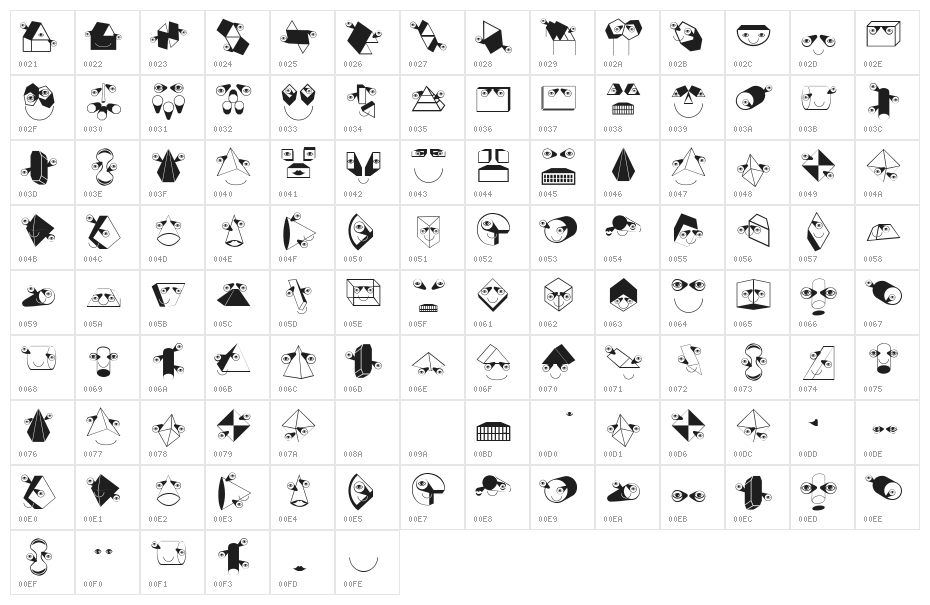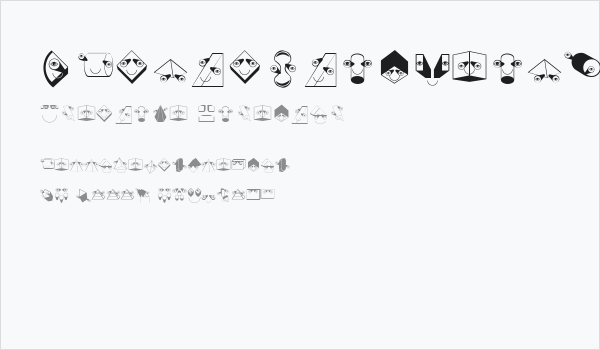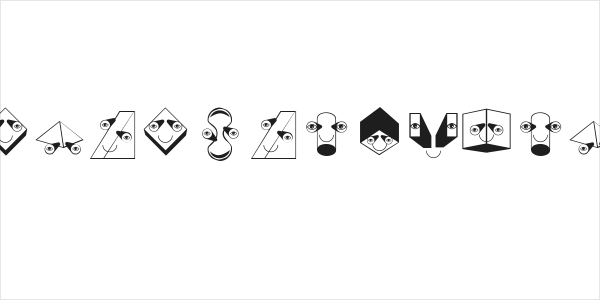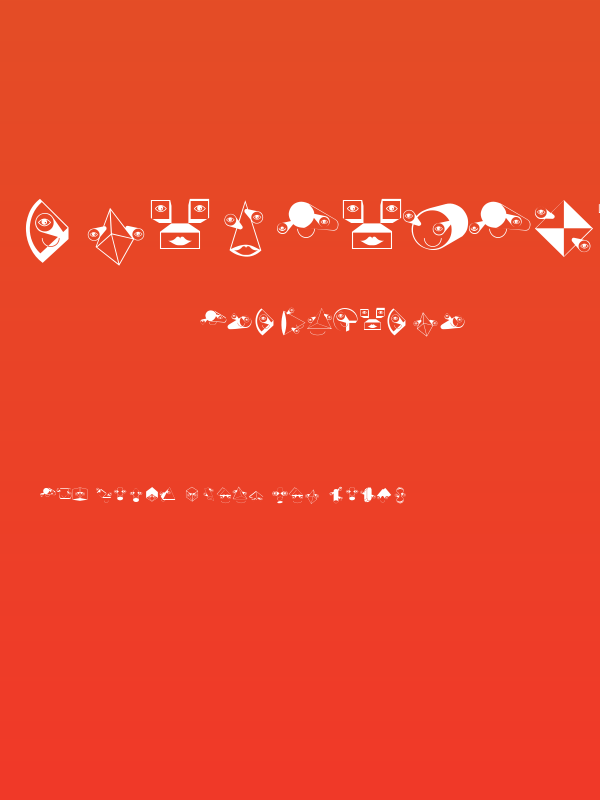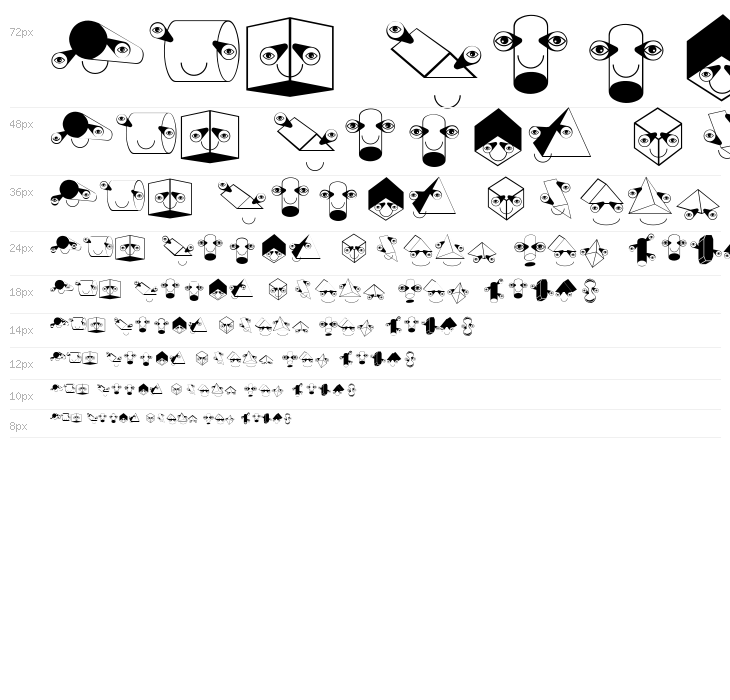
PhantasticBeings Font
PhantasticBeings Description
This is not a valid font. The image contains a series of abstract, geometric shapes with eyes, resembling whimsical creatures or characters. These designs are more illustrative and decorative, lacking the typical characteristics of a functional typeface. Each character is unique, with varying shapes and expressions, making them unsuitable for traditional text representation.
| Use Case | Illustrations, Branding, Creative Projects |
| Proposed Projects | These designs could be used for creative projects such as children's books, animations, or branding for playful and imaginative products. |